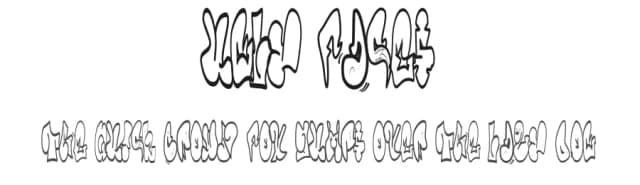
About Mest Cst Font
Mest Cst is a script & handwritten font designed by Christopher, Joseph Hammer. It includes 43 glyphs, a regular weight, OTF (CFF) format, and 168 languages. Mest Cst is free to download; check the license details on this page before commercial use. Script & handwritten fonts like Mest Cst work best for wedding invitations, greeting cards, signatures, and elegant branding.
Mest Cst Font is a script font that shines as a display or heading face. Pair it with a clean sans-serif or serif font for body text β the contrast creates a clear hierarchy while the two styles stay balanced and easy to read.